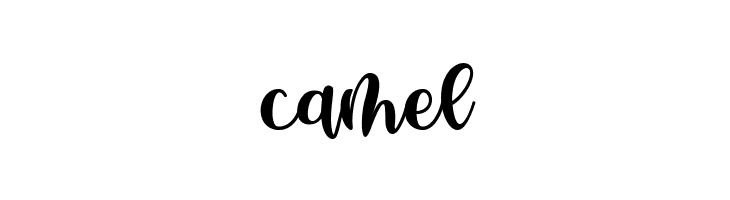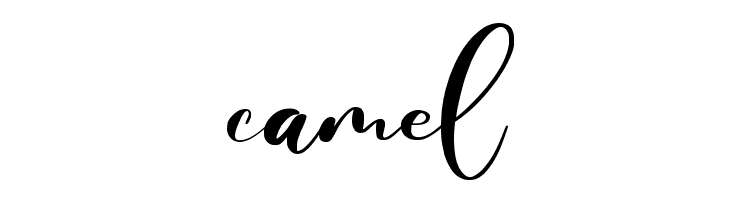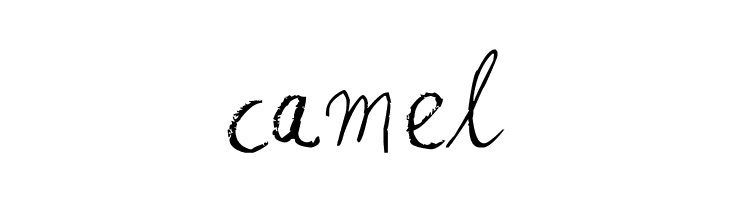
Casual, connected handwritten script with playful loops.
A playful, hand-drawn font with irregular strokes and a whimsical style.
A lively, handwritten script font with fluid, interconnected letters.
A dynamic, brush-style font with an expressive, hand-drawn appearance.
A playful, handwritten script font with dynamic strokes and smooth connections.
A playful, handwritten script font with elegant loops and curves.
A playful, handwritten font with smooth, rounded edges and a friendly appearance.
A modern, elegant script font with flowing, cursive letters and dynamic contrast.